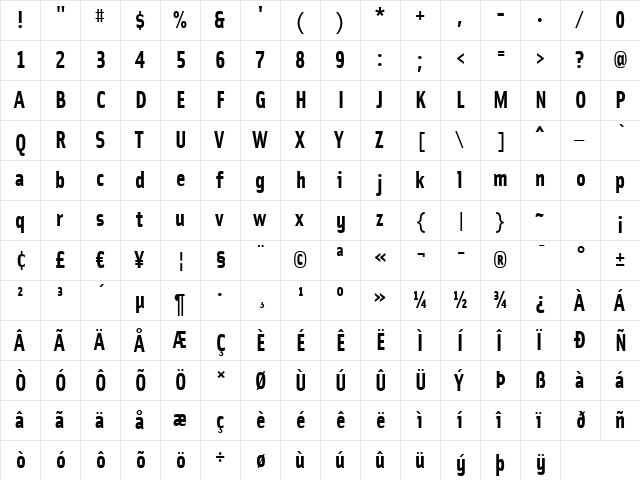
SolexBoldLining Regular
| Foundry | Emigre Inc. |
| Designer | Zuzana Licko |
Design Context for SolexBoldLining Typeface
SolexBoldLining offers clean, dependable letterforms without strong stylistic allegiance, making it a practical choice for designers who need flexibility. The heavy weight commands attention and anchors typographic hierarchies.